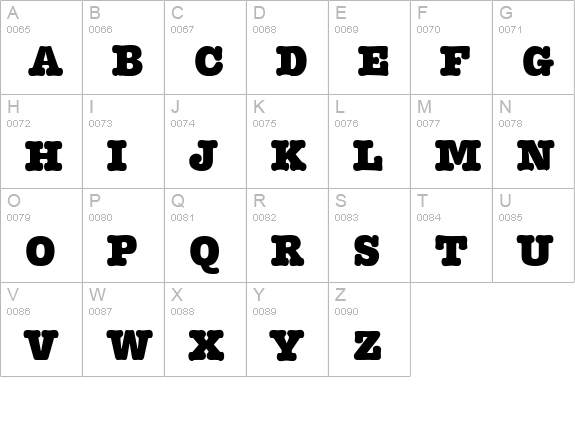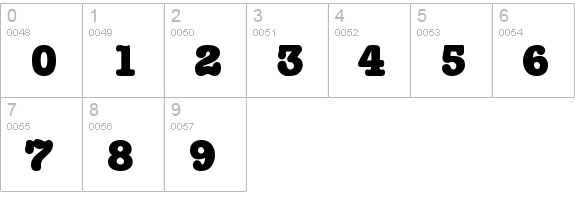
TypewriterSerial-Heavy-Regular is a heavy, high-impact variant in the TypewriterSerial typeface family \xE2\x80\x94 well suited to high-impact headlines, posters, and display advertising.
TypewriterSerial-Heavy-Regular font is a classic and robust typeface that exudes a sense of vintage charm and authenticity. Its heavy weight and distinctive typewriter-inspired design make it perfect for adding a touch of nostalgia to your projects. Whether you're working on a retro-themed poster, a vintage-inspired website, or a creative branding project, this font is sure to make a statement. The best part? TypewriterSerial-Heavy-Regular font is available for free download at FontsMarket.com. You can easily access this versatile font and incorporate it into your designs without any cost. Don't miss out on the opportunity to enhance your creative projects with this timeless and stylish typeface. Download TypewriterSerial-Heavy-Regular font today from FontsMarket.com and let its unique character and charm bring a touch of vintage flair to your designs.